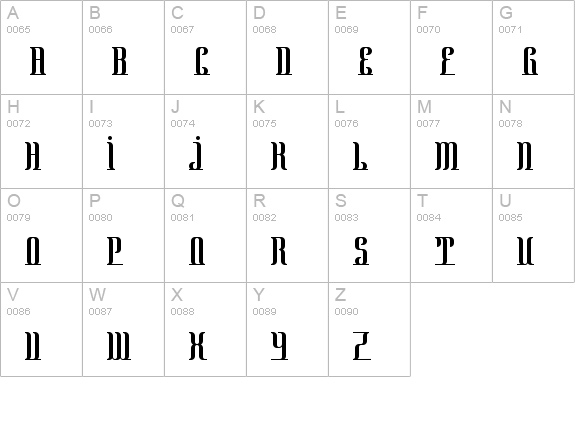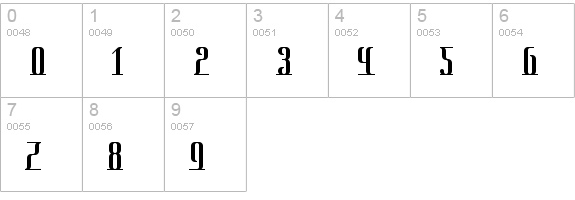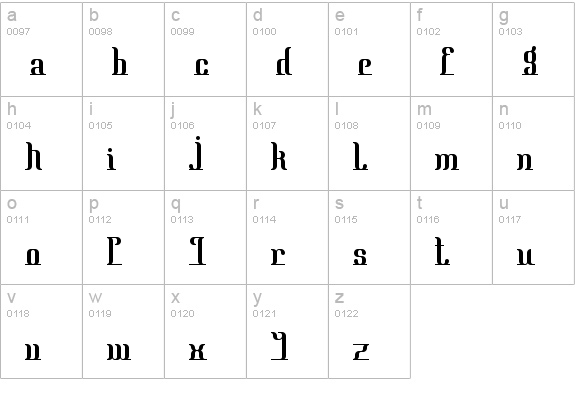
Mata Hari Parisienne Font Details
Mata Hari Parisienne font is a stunning and elegant typeface that captures the essence of the iconic city of Paris. With its graceful curves and sophisticated letterforms, this font exudes a sense of timeless beauty and charm. Designed with meticulous attention to detail, Mata Hari Parisienne font is perfect for adding a touch of French allure to your designs. Whether you are working on invitations, branding, or any other creative project, this font will effortlessly elevate your work to new heights. What makes Mata Hari Parisienne font even more enticing is that it is available for free! That's right, you can download this exquisite font without spending a dime. Simply visit FontsMarket.com and indulge in the beauty of this typeface without breaking the bank. With Mata Hari Parisienne font, you have the opportunity to embrace the elegance of Paris and infuse it into your designs. Its versatility allows it to be used in a variety of contexts, from romantic wedding invitations to sophisticated business cards. Don't miss out on the chance to enhance your designs with the allure of Mata Hari Parisienne font. Download it for free today at FontsMarket.com and experience the beauty and grace it brings to your creative projects.